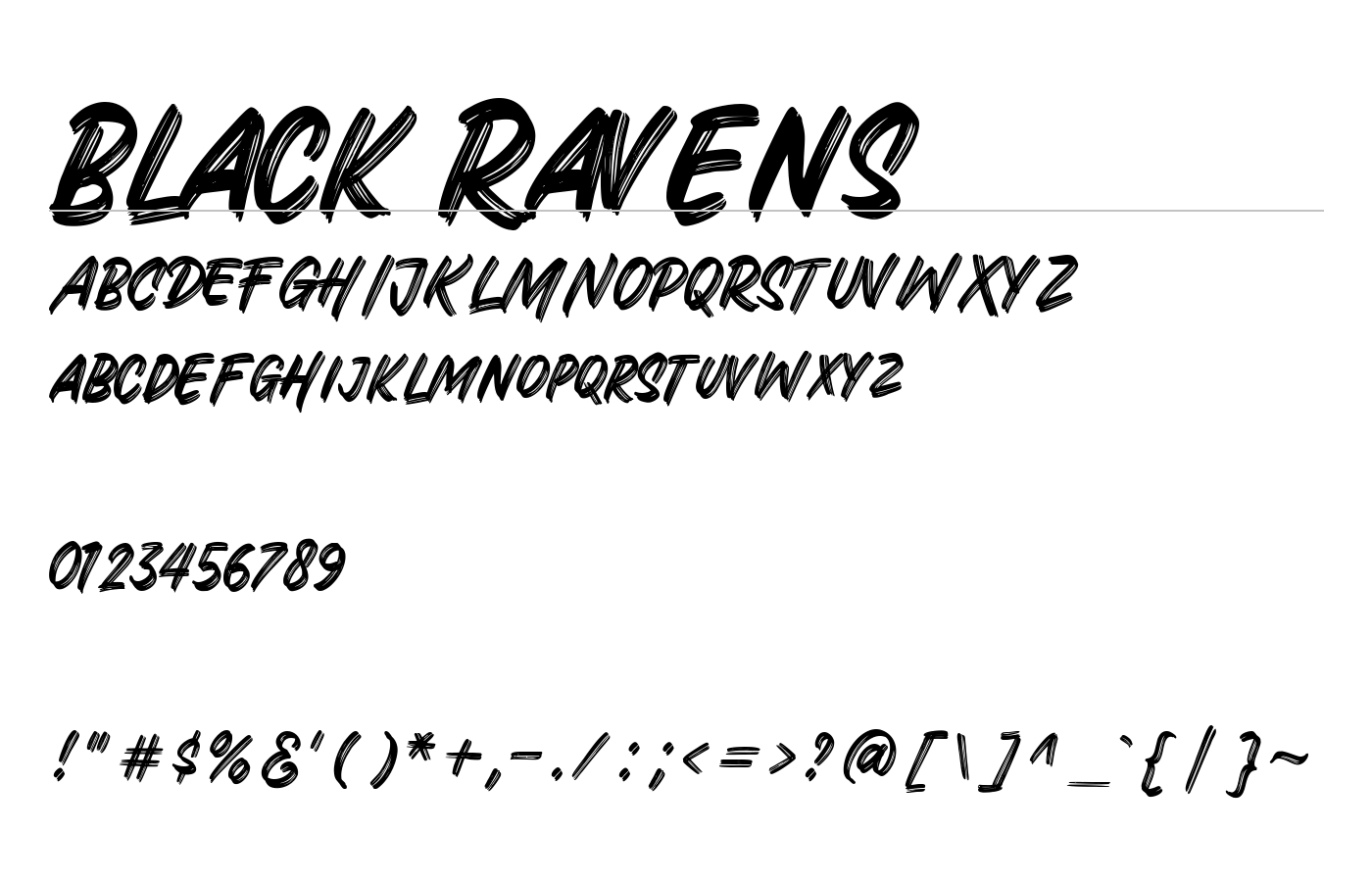
Black Ravens is a bold and energetic brush script font with a strong, hand-painted feel that combines casual charm with artistic flair. Its slightly condensed letterforms and dynamic strokes make it perfect for impactful headlines, logos, and creative designs that need a spirited and modern touch. This font works well in branding and promotional materials where a playful yet confident style is desired.
Black Ravens Font
About Black Ravens Font
| Font family | Black Ravens Font |